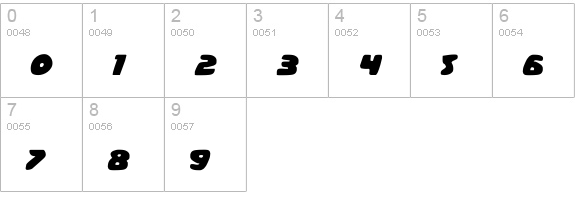
Introducing Casper Comics Solid font, a playful and dynamic typeface perfect for adding a touch of fun to your designs. This bold and versatile font features clean lines with a hint of whimsy, making it ideal for comic books, posters, branding, and more. Casper Comics Solid font is freely available to download at FontsMarket.com, allowing you to bring your creative projects to life without any cost. Embrace the creativity and character of Casper Comics Solid font to make a bold statement in your designs today!